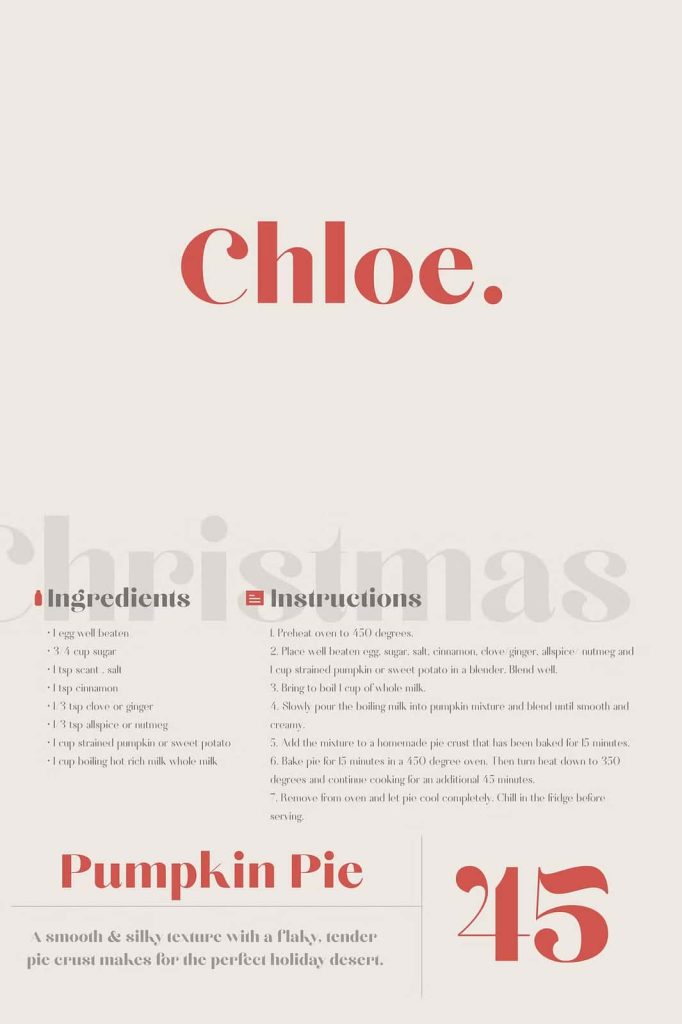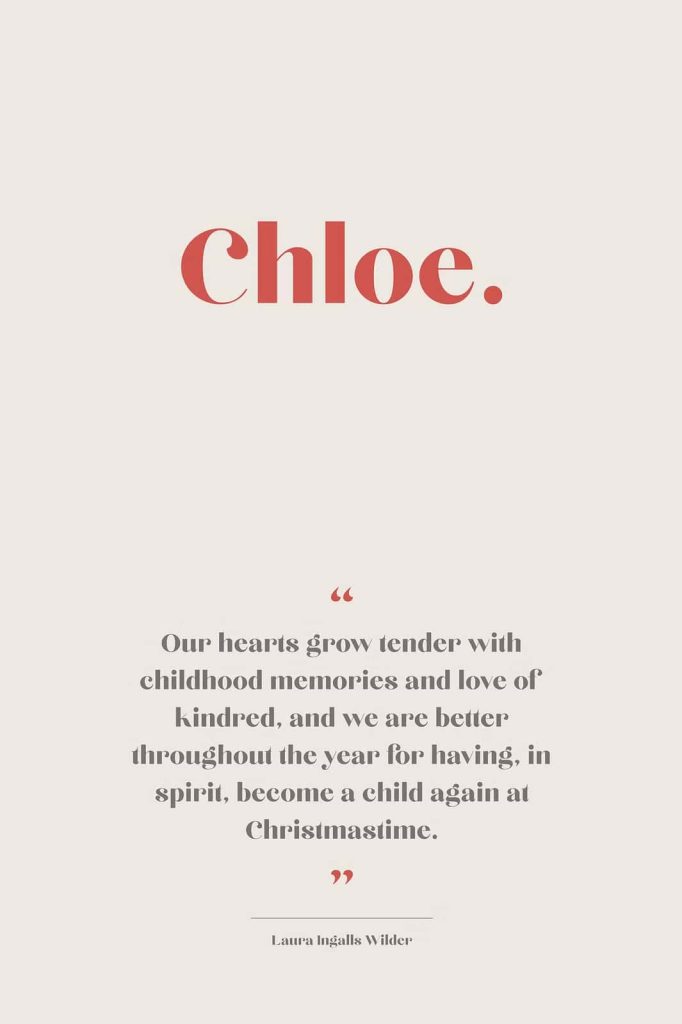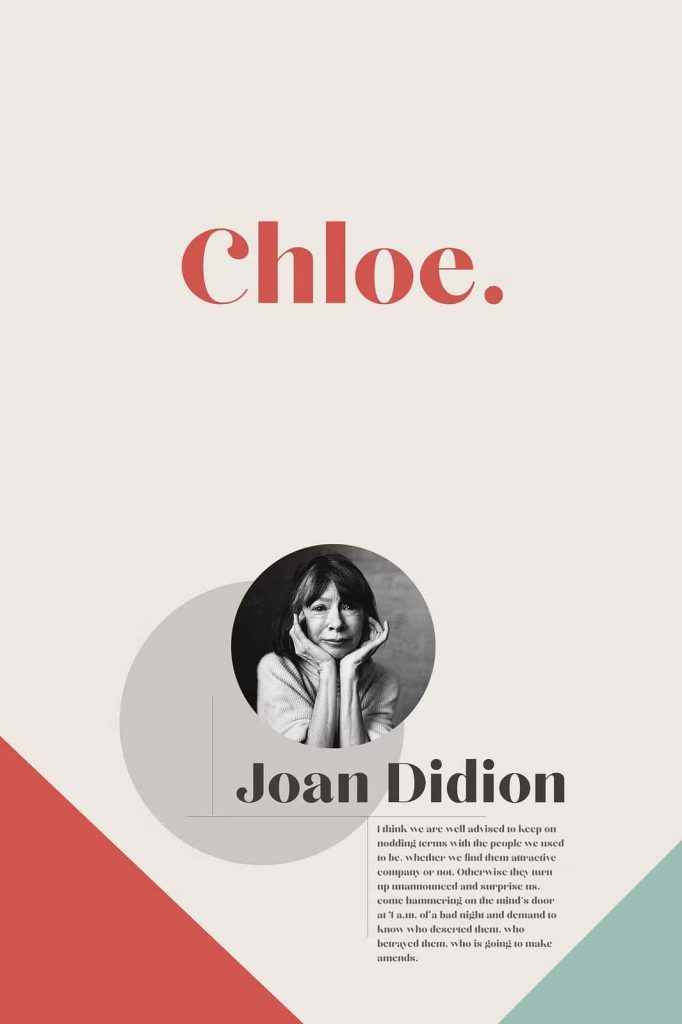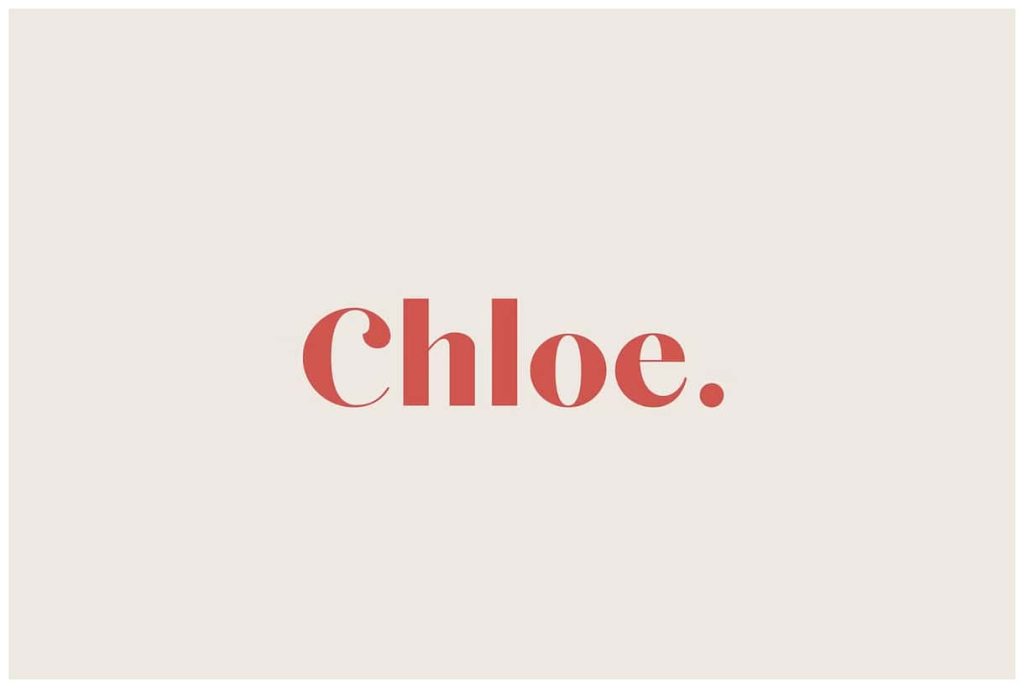
Chloe – A Classic TypefaceleastedMarch 15, 2025Fonts Chloe – A Classic Typeface Create bold, gorgeous headlines and elegant designs with a vintage flair. Download